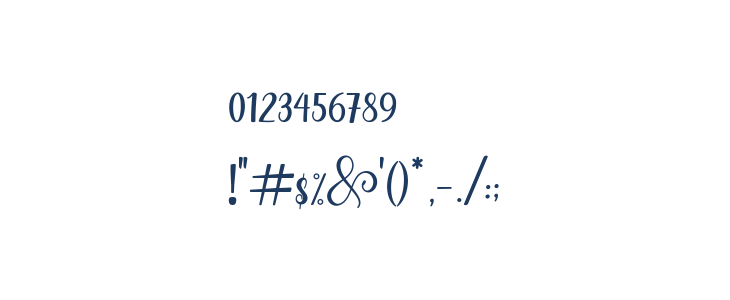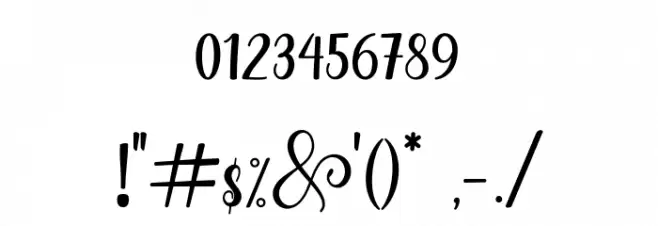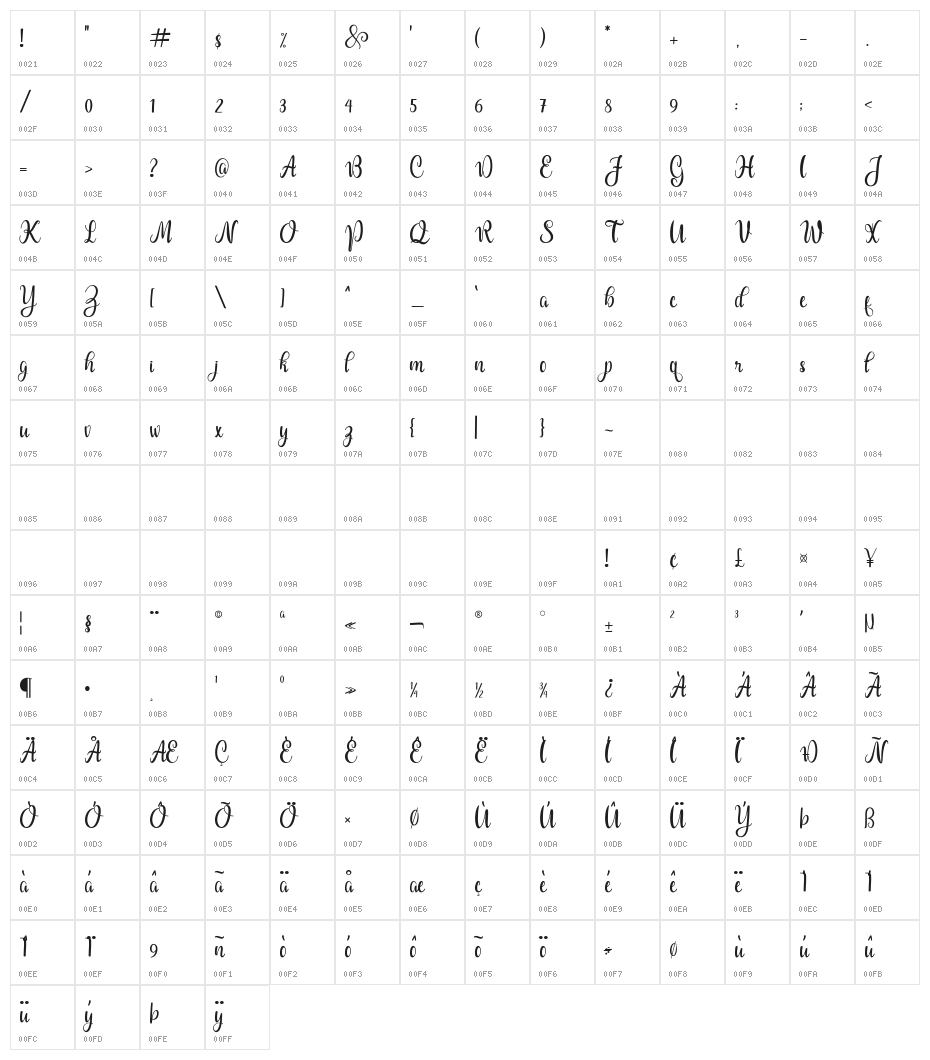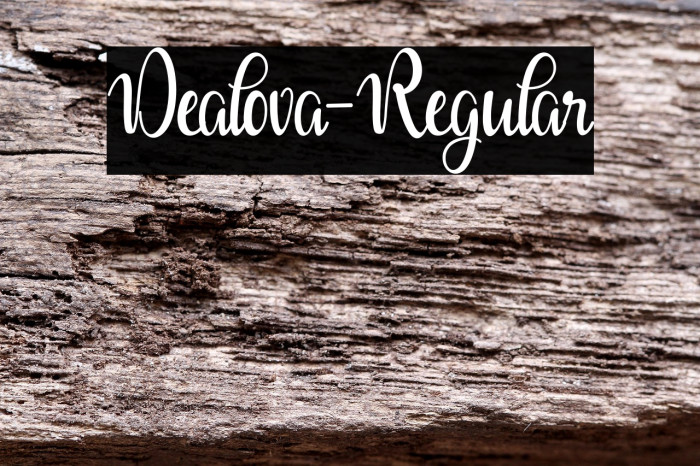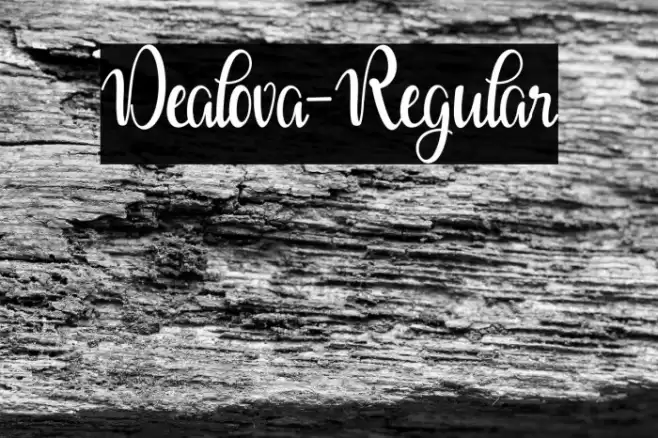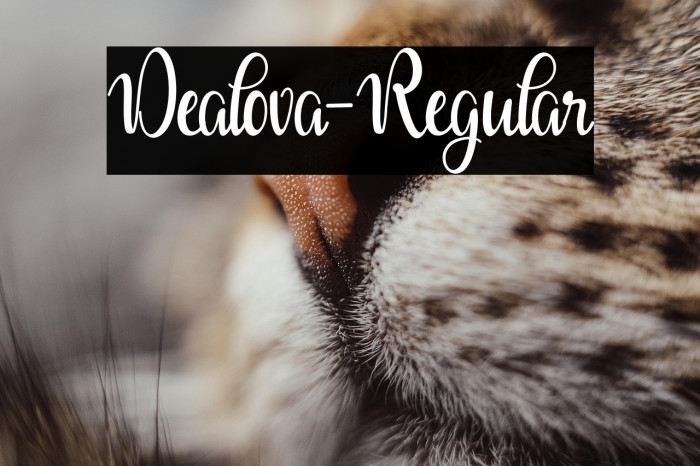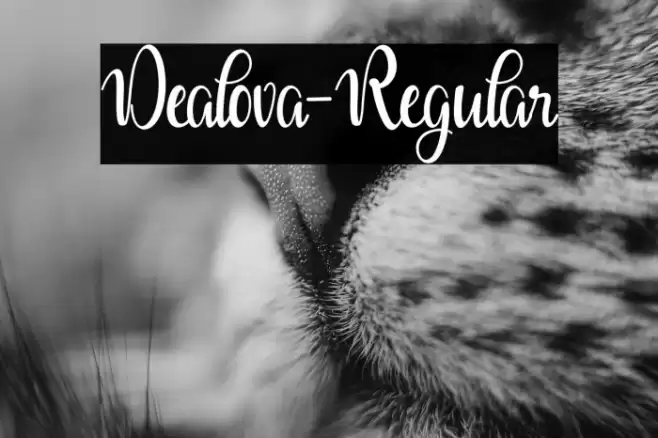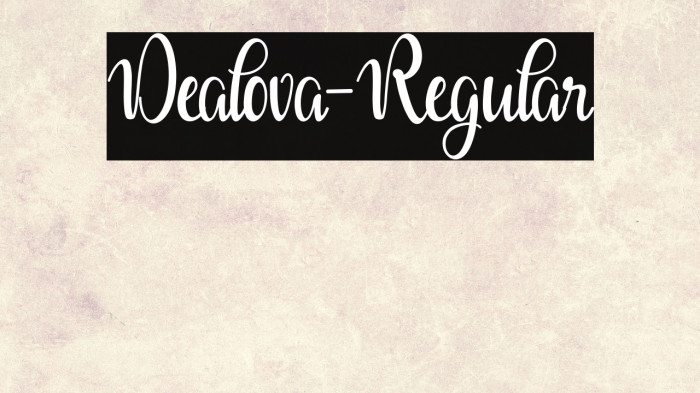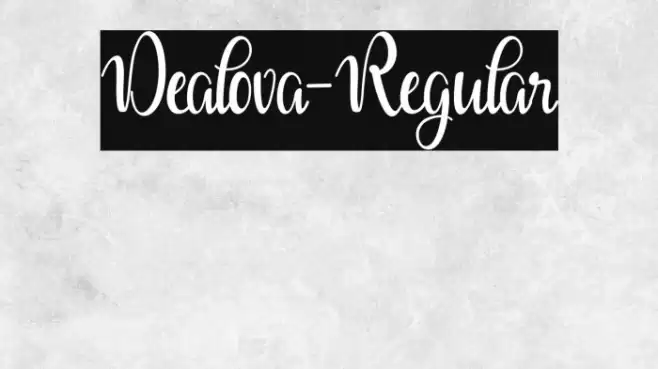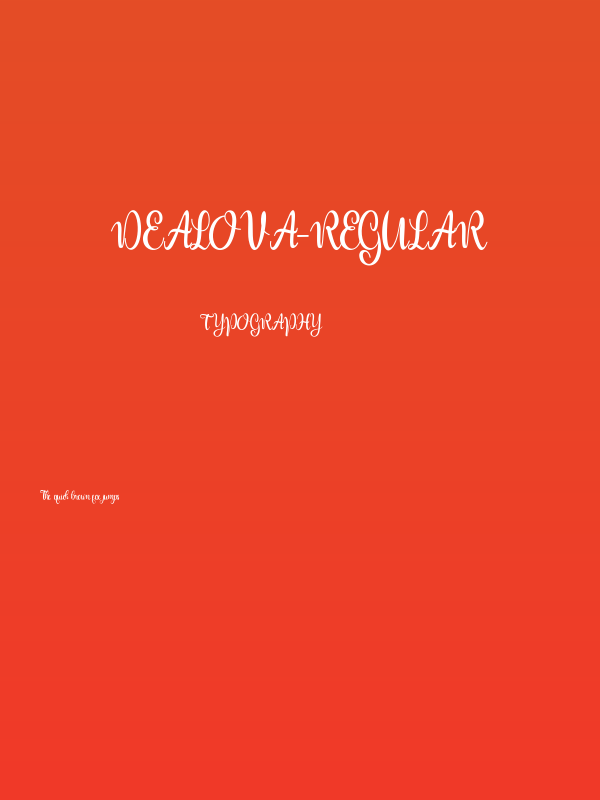
Dealova-Regular Font
Dealova-Regular Description
This font features an elegant and flowing script style, characterized by its smooth, cursive letterforms. The uppercase letters are particularly ornate, with sweeping curves and loops that give a sense of movement and grace. The lowercase letters maintain a consistent style, with a slightly more restrained flourish, ensuring readability while retaining a decorative touch. The numerals and special characters are designed to match the overall aesthetic, with similar curves and embellishments. This font is ideal for projects that require a touch of sophistication and elegance.
Use CaseLogos, Invitations, Decorative text
Proposed ProjectsIdeal for wedding invitations, greeting cards, branding, and elegant packaging designs.